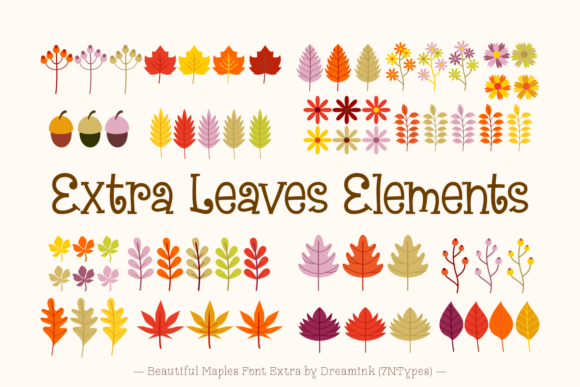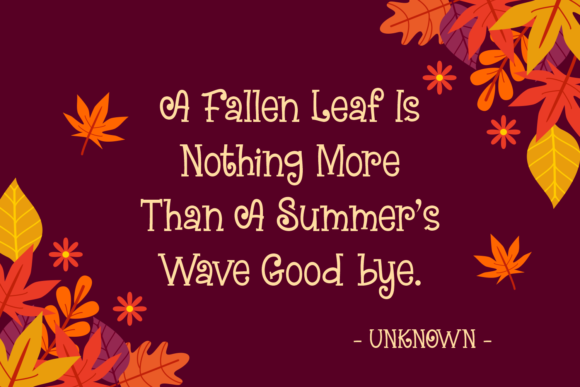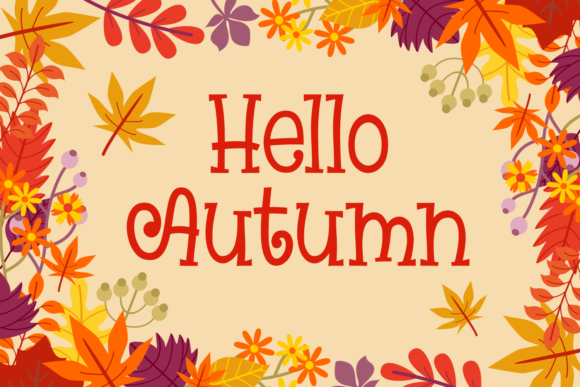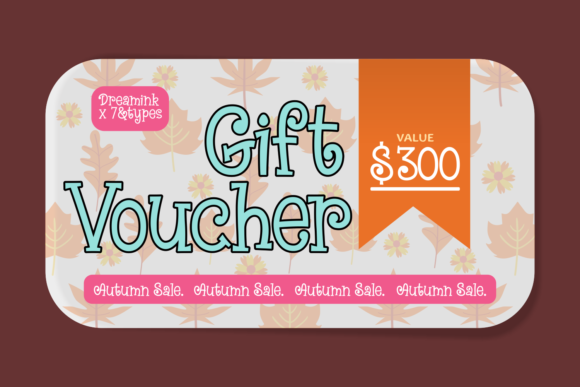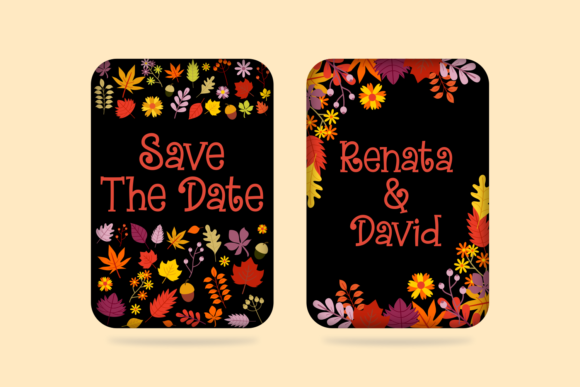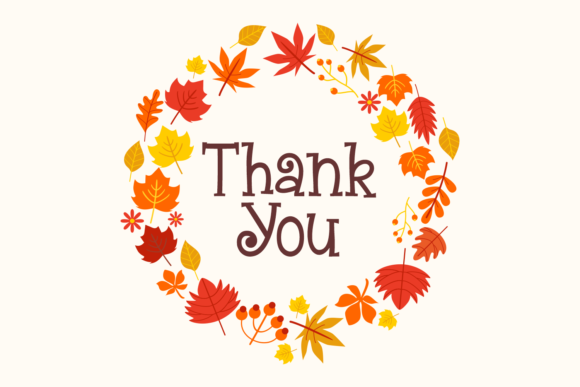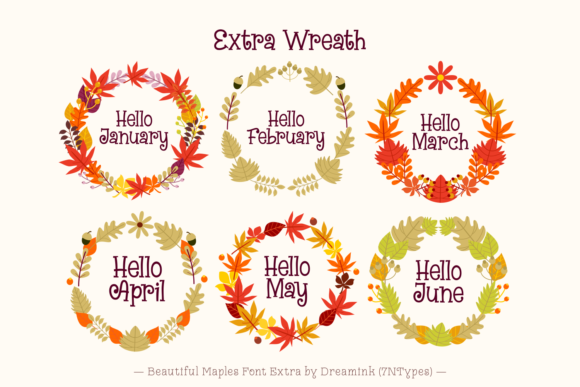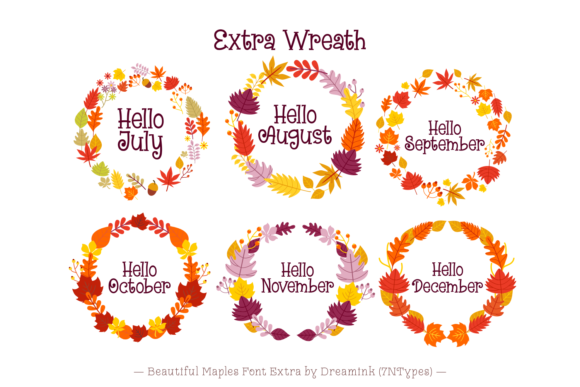
Beautiful Maples Font
About Beautiful Maples Font
Beautiful Maples embodies fun, playfulness and authenticity. This enchanting handwritten font will turn any creative idea into a true standout.